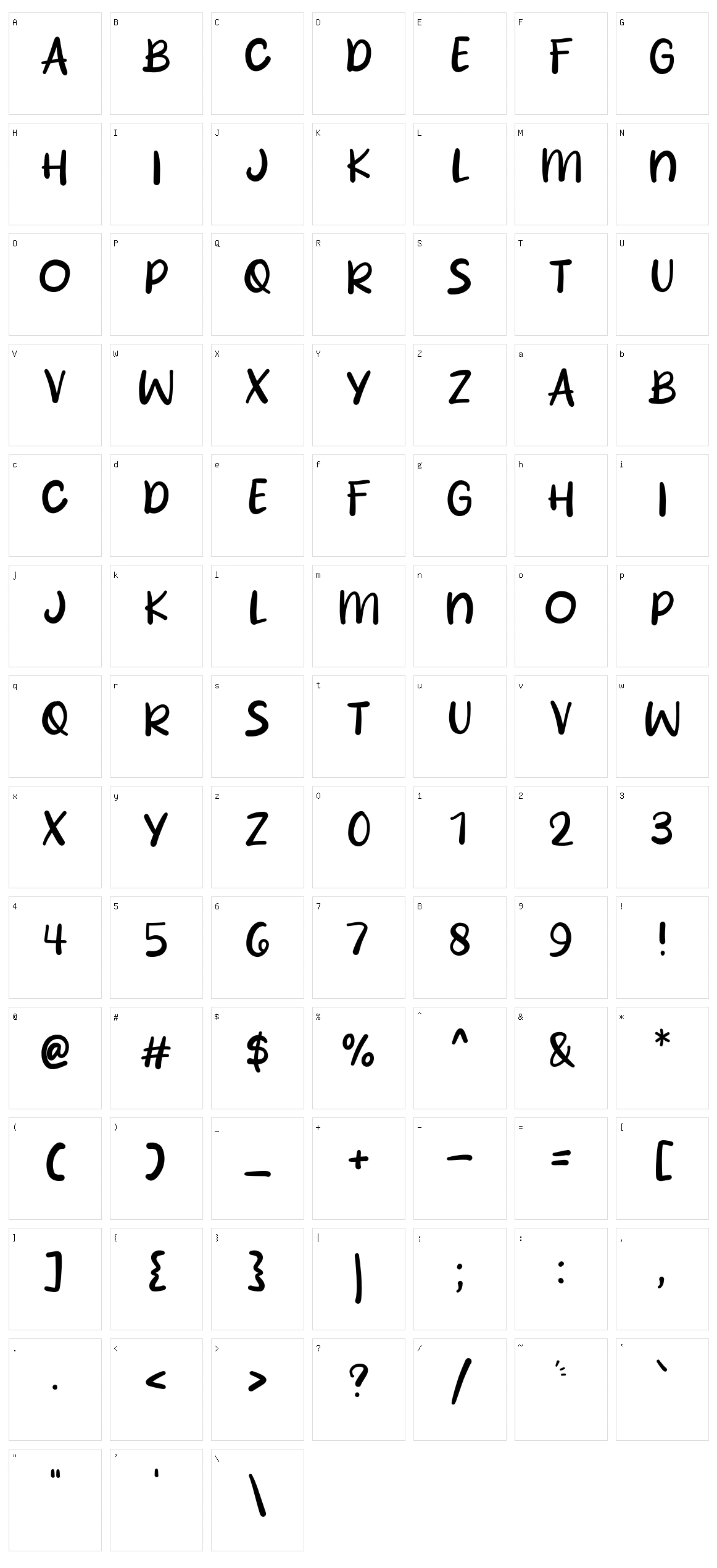
The free font Heyhoo is carefully designed by Khurasan, showcasing a thoughtful balance of creativity and usability and falls under the Script font style. When you download the ZIP file, it contains only 371.61 KB of font files, making it lightweight and quick to download. Please review the license details below to understand permitted usage and distribution rights. If license information is not available, we recommend using this font for personal projects only or contacting the author directly for commercial usage permissions.